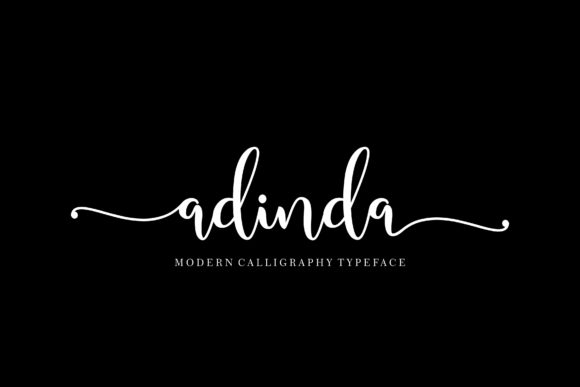
Adinda Font
About Adinda Font
Adinda is a romantic font script with a bold feel. It has a striking and elegant style, and is perfect for creating unique designs.